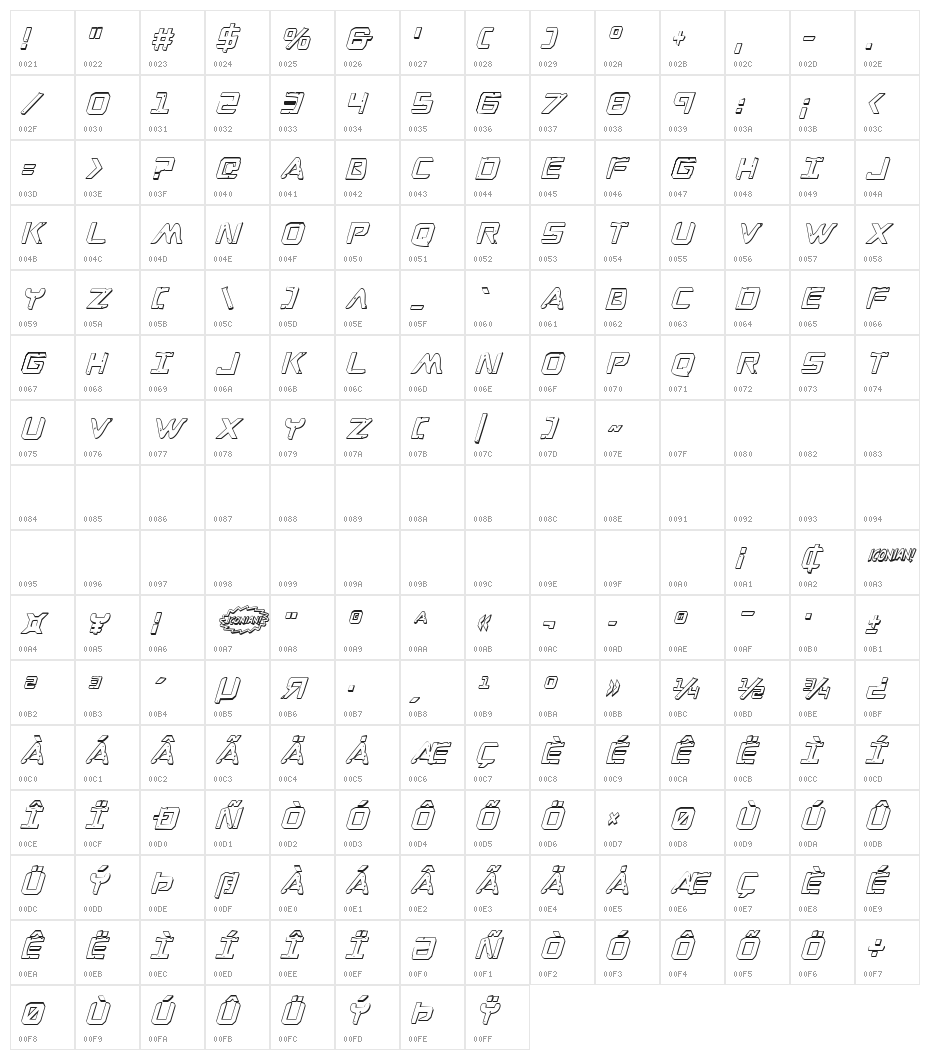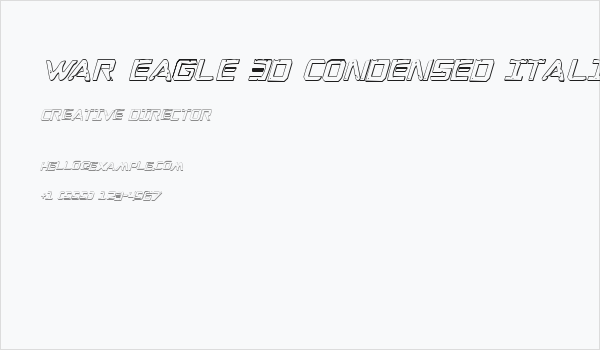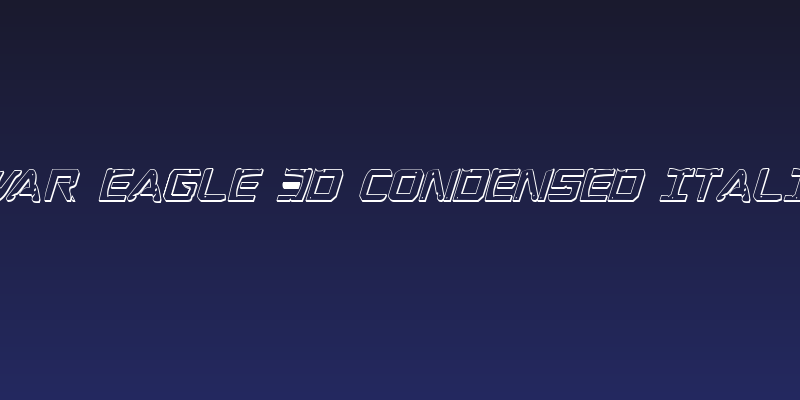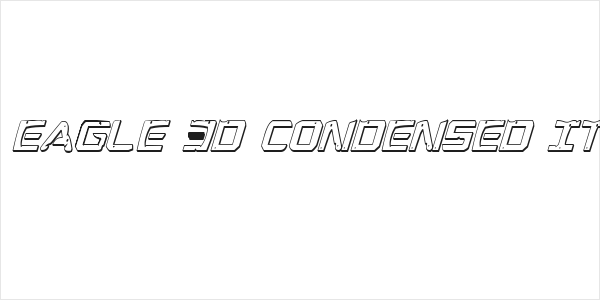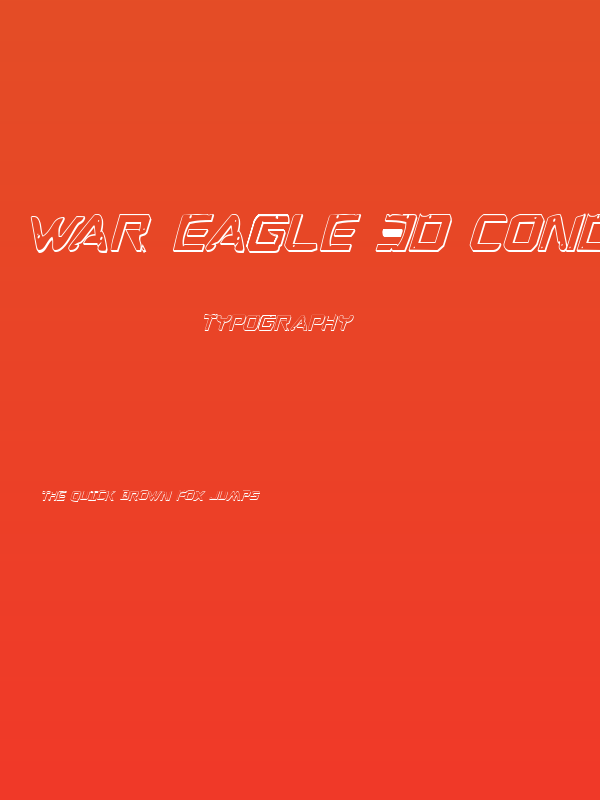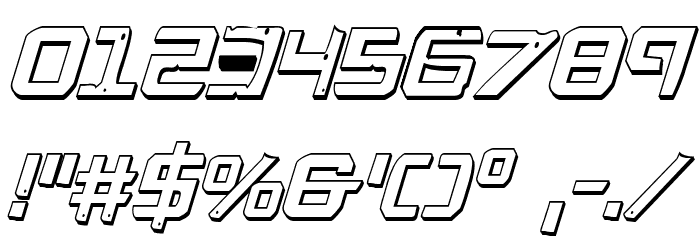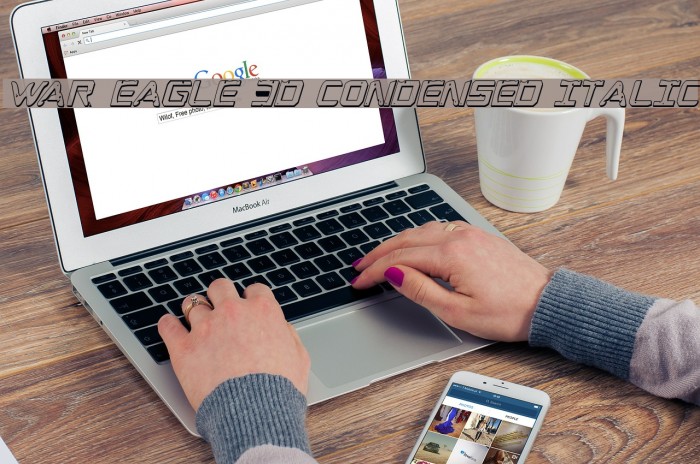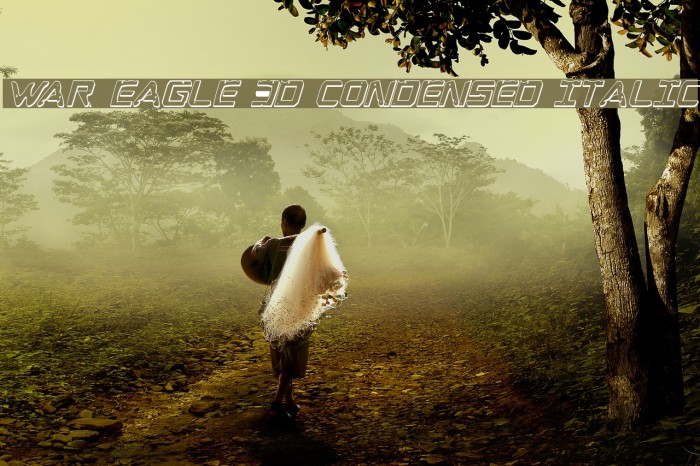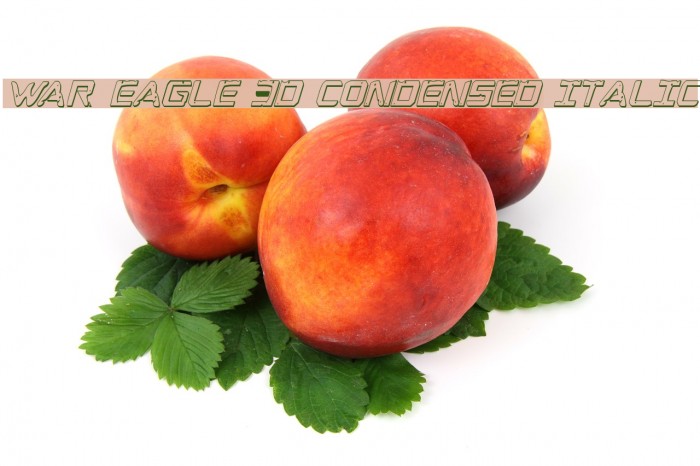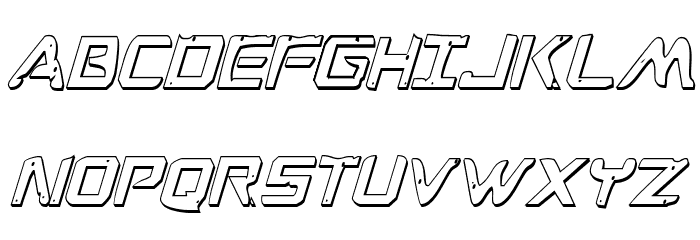
War Eagle 3D Condensed Italic Font
War Eagle 3D Condensed Italic Description
This font features a bold, 3D-styled design with a condensed and italicized form. The characters have a futuristic and dynamic appearance, with sharp angles and a sense of motion. The outline style adds depth and dimension, making it stand out. It is well-suited for projects that require a modern and edgy look, such as technology branding, sports team logos, or video game titles. The font maintains a consistent stroke width, contributing to its bold presence, while the condensed nature allows for efficient use of space.
| Proposed Projects | Ideal for technology branding, sports logos, and video game titles. |